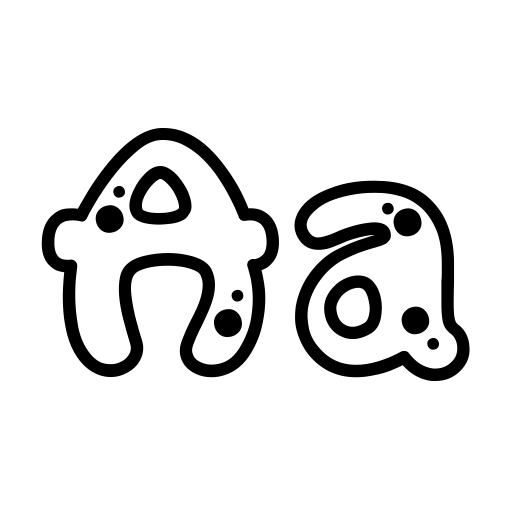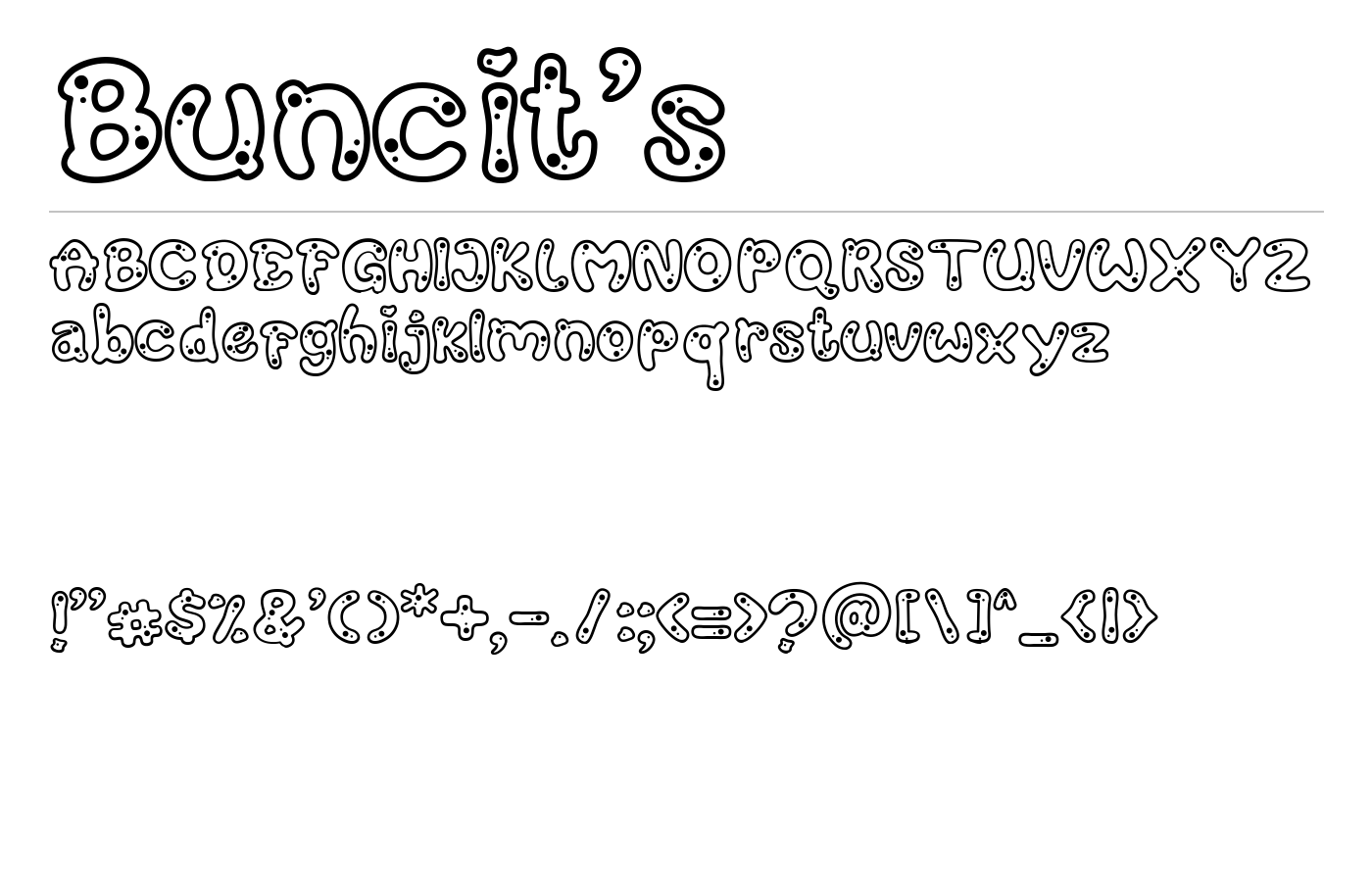
Buncit's is a playful and whimsical sans serif font featuring rounded, bubbly letterforms with irregular outlines and scattered dot embellishments that give it a fun, hand-drawn feel. Its light weight, consistent width, and tall x-height make it highly legible while maintaining a cheerful, casual personality, perfect for children’s materials, party invitations, and creative branding that seeks to inspire joy and friendliness. This font shines best in display uses like logos, posters, and headlines where its unique charm can truly stand out.
Buncit's Font